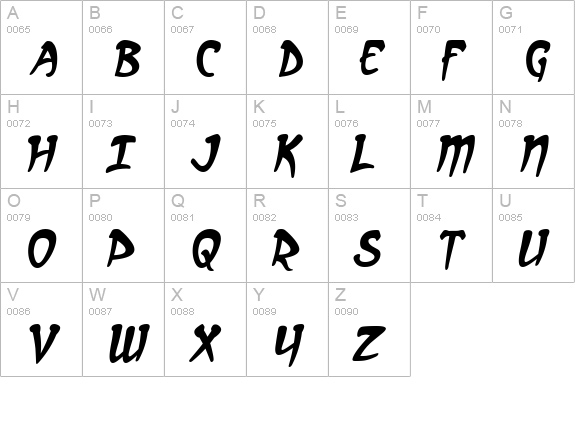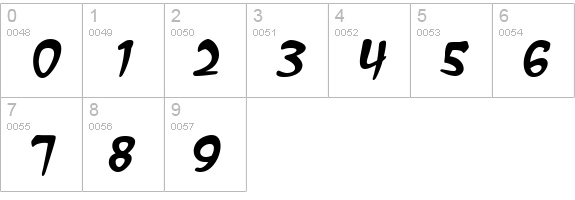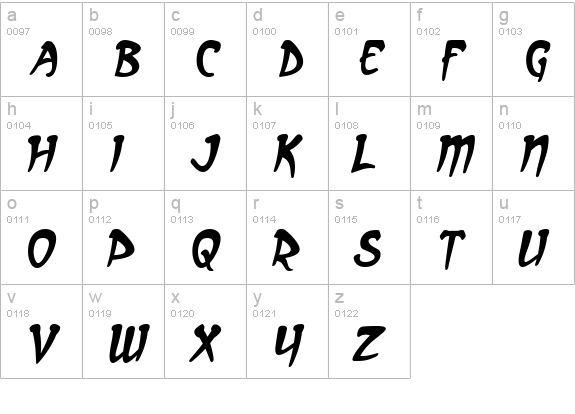
Arcanum Italic Font Details
Arcanum Italic is a distinctive, italic variant in the Arcanum typeface family \xE2\x80\x94 well suited to design and typography projects.
Arcanum Italic is a stunning and elegant font that exudes sophistication and charm. With its sleek and stylish design, this font is perfect for adding a touch of class to any project. The italicized letterforms flow gracefully, making it ideal for adding emphasis or creating a sense of movement in your text. The best part about Arcanum Italic is that it is completely free to download at FontsMarket.com. This means you can enhance your designs with this beautiful font without any cost. Whether you are working on a website, branding materials, invitations, or any other creative project, Arcanum Italic will elevate your work to the next level. Don't miss out on this amazing opportunity to enhance your designs with Arcanum Italic. Download it for free today at FontsMarket.com and bring a touch of elegance to your projects!